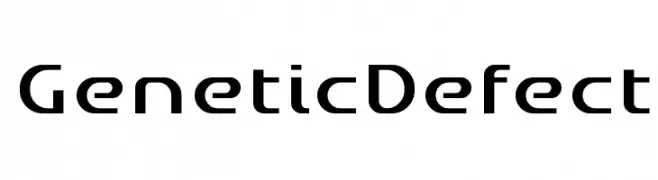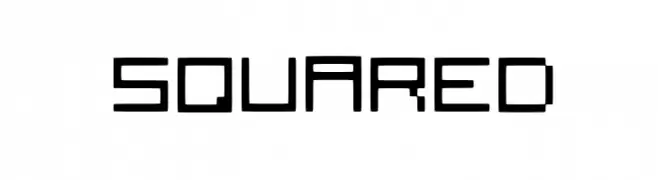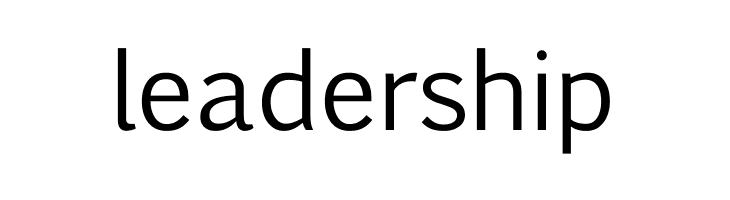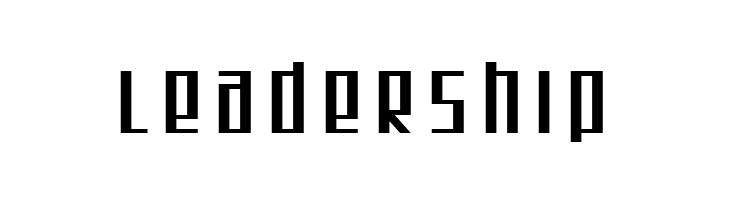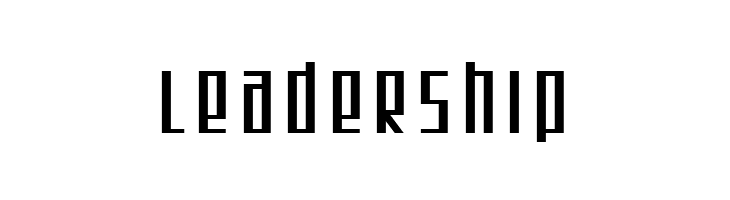
A bold, modern sans-serif font with expanded width and high legibility.
A modern, geometric font with rounded edges and a minimalist style.
A futuristic, geometric sans-serif font with rounded edges and a modern aesthetic.
A sleek, modern font with geometric lines and rounded edges.
A bold, geometric font with a modern and futuristic style.
A modern, rounded font with a geometric and uniform design.
A futuristic, oblique font with bold, extended letterforms and a tech-inspired design.
A modern, geometric font with a futuristic and streamlined design.
A futuristic, geometric font with rounded edges and dot elements.
A futuristic, geometric font with bold, angular letterforms and consistent stroke width.
A futuristic, geometric font with rounded edges and uniform thickness.
A futuristic, geometric font with rounded edges and consistent line thickness.
A futuristic, rounded font with a sleek, modern design.
A geometric, angular font with a modern and technical aesthetic.
A geometric, modern font with a square-like structure and sharp angles.
A modern, geometric font with rounded edges and consistent stroke widths.
A bold, modern sans-serif font with geometric shapes and even spacing.
A futuristic, geometric font with bold, square letterforms.
A geometric, square-based font with a futuristic and digital aesthetic.
A geometric, square, and condensed font with a modern and futuristic style.
A modern, oblique font with sleek lines and geometric precision.
A modern, condensed font with sleek, elongated characters and a futuristic style.